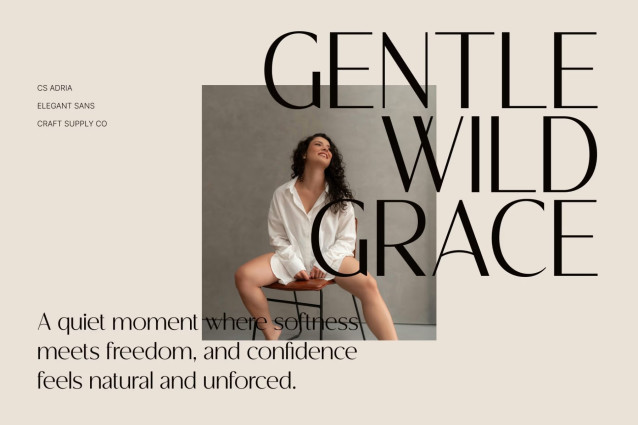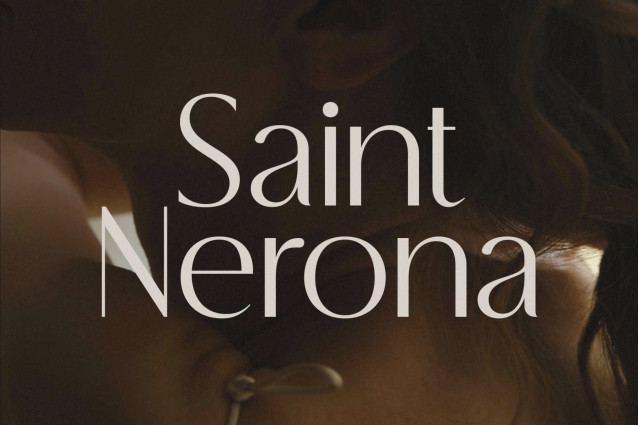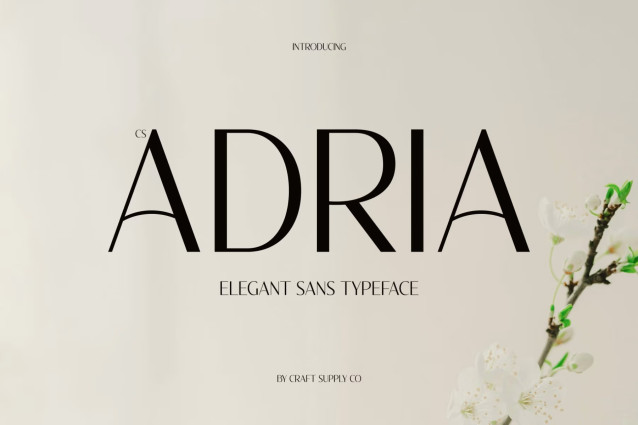
CS Adria – Modern Sans Serif with Confident Clarity
Modern Sans Serif with Strong Presence
This is a modern sans serif font designed to communicate strength, clarity, and confidence. With its clean lines and balanced proportions, this typeface delivers a professional and contemporary tone that stands out in any layout. It is crafted for designers who want typography that feels bold, reliable, and visually refined.
Clean Structure with Contemporary Precision
Every letterform is carefully shaped to create a harmonious and highly readable design. The smooth geometry and precise construction ensure a crisp appearance across both digital and print media. This clean structure helps maintain clarity even in large headlines or dense editorial layouts.
Confident Character with Versatile Style
This font balances modern minimalism with a confident personality, making it adaptable to a wide range of creative projects. Its clear and strong presence enhances visual hierarchy while maintaining a polished and approachable feel. The result is a typeface that feels both professional and dynamic.